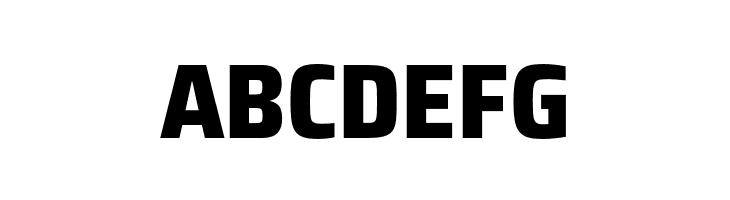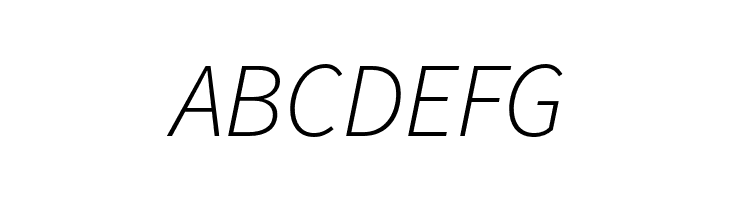
( Fonts by IBM )
A modern, light, italic sans-serif font with clean lines and excellent readability.
( Fonts by Omnibus Type )
A bold, semi-condensed typeface with a modern and impactful style.
( Fonts by Adobe )
A modern, light, and italic sans-serif font with clean lines and elegant slant.